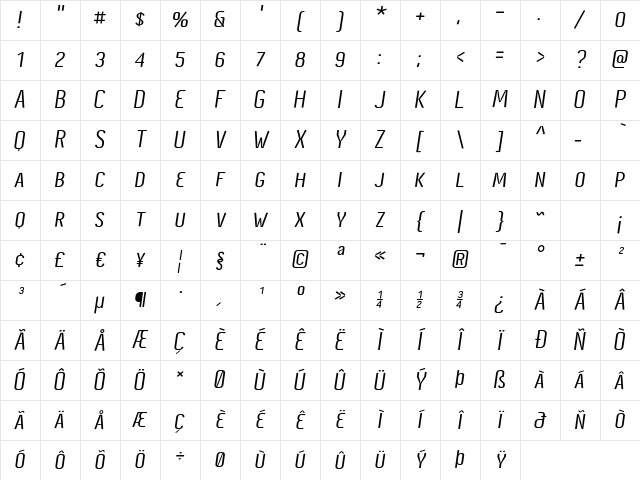
Cynapse Pro SC Bold Italic
Foundry: Neil Summerour/Positype
Designer: Neil Summerour/Positype
Design Context for Cynapse Pro SC
Cynapse Pro SC is a composed and adaptable typeface that performs quietly and consistently across a wide range of design contexts. The slanted form adds forward momentum and visual energy. Its bold stroke weight gives it real presence on the page.
Pro Tip: Use Cynapse Pro SC for emphasis, pull quotes, and subheadings where its slanted energy can add rhythm to the layout.
Who designed the Cynapse Pro SC Bold Italic font?